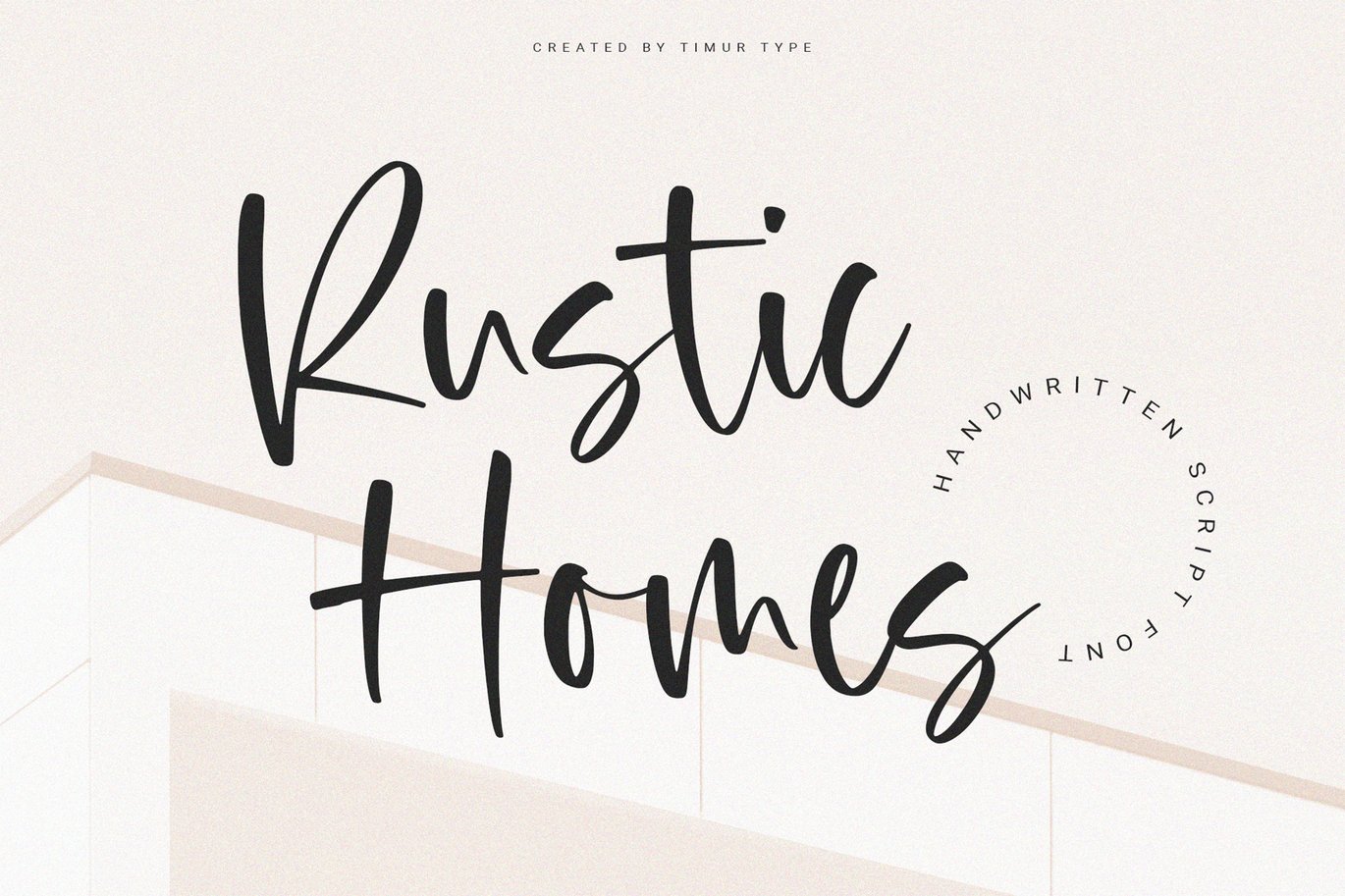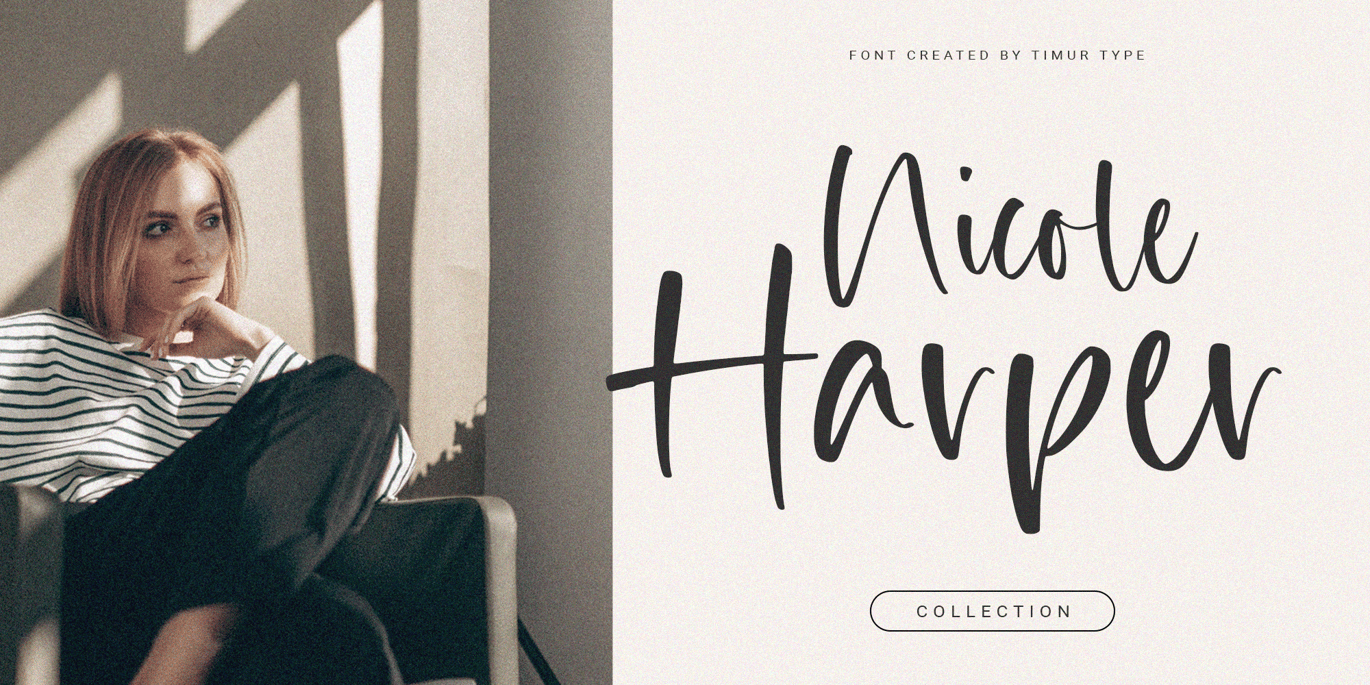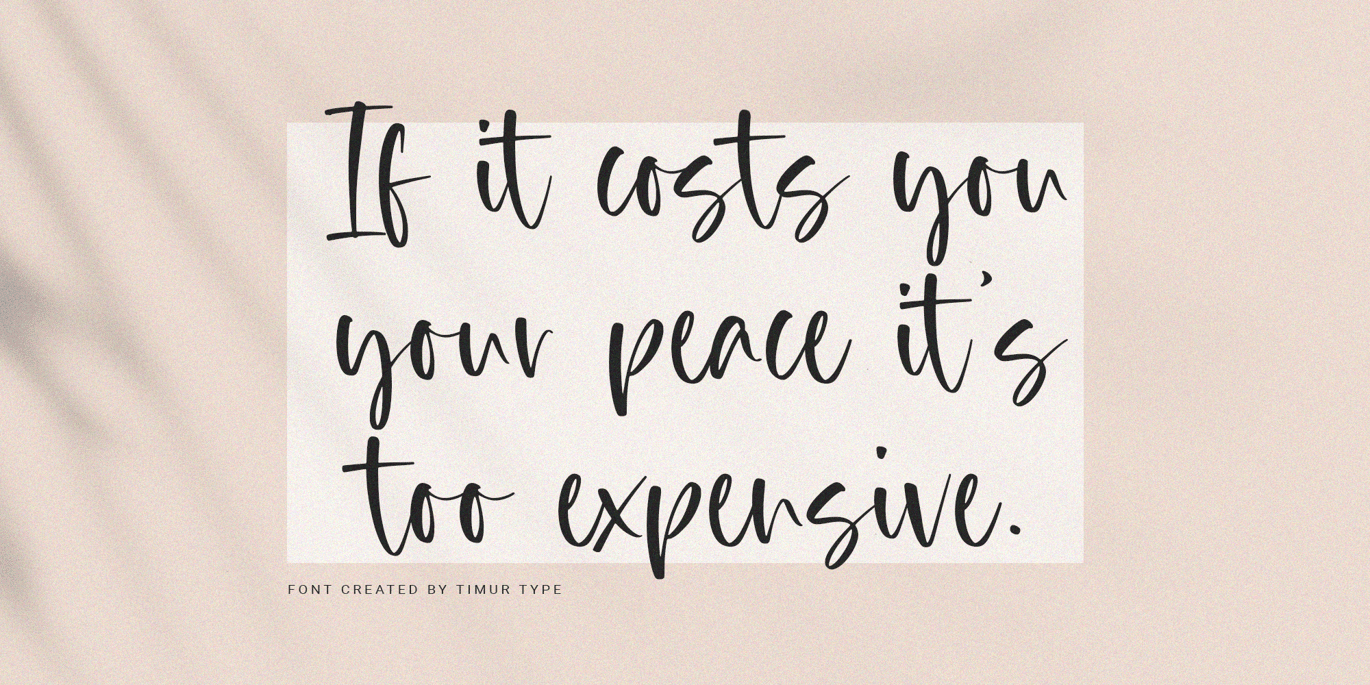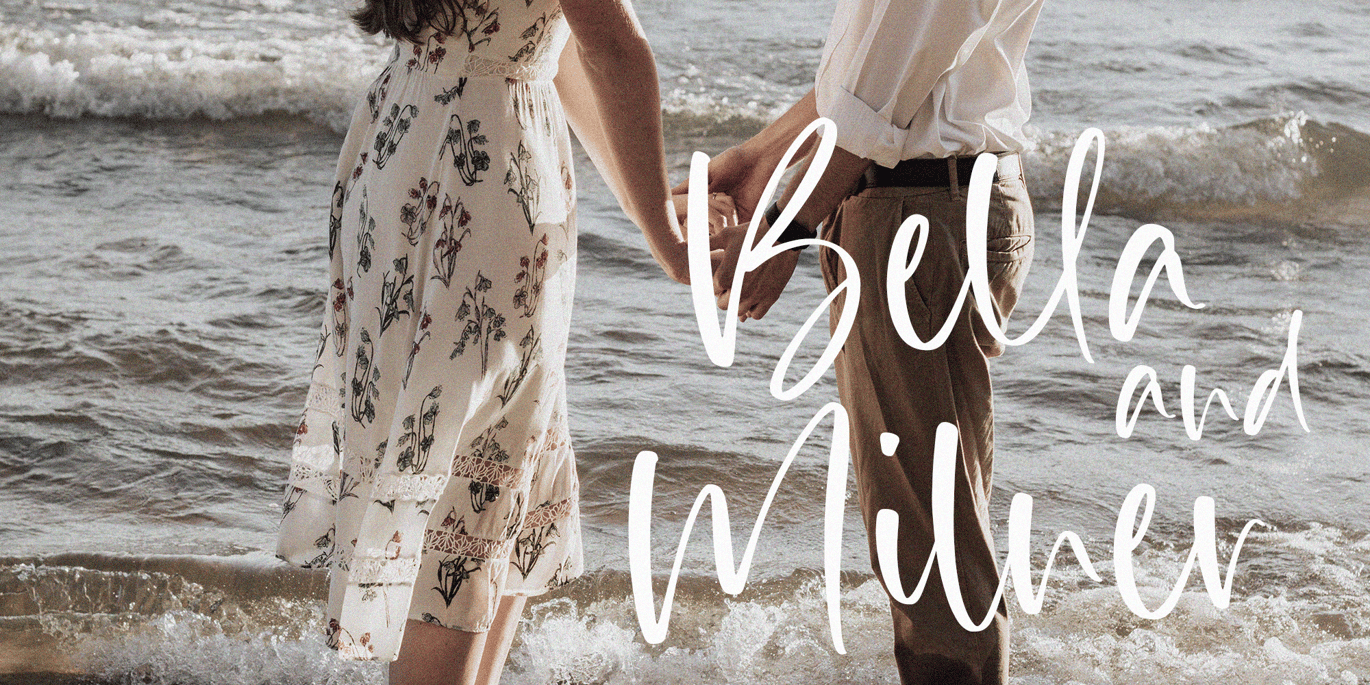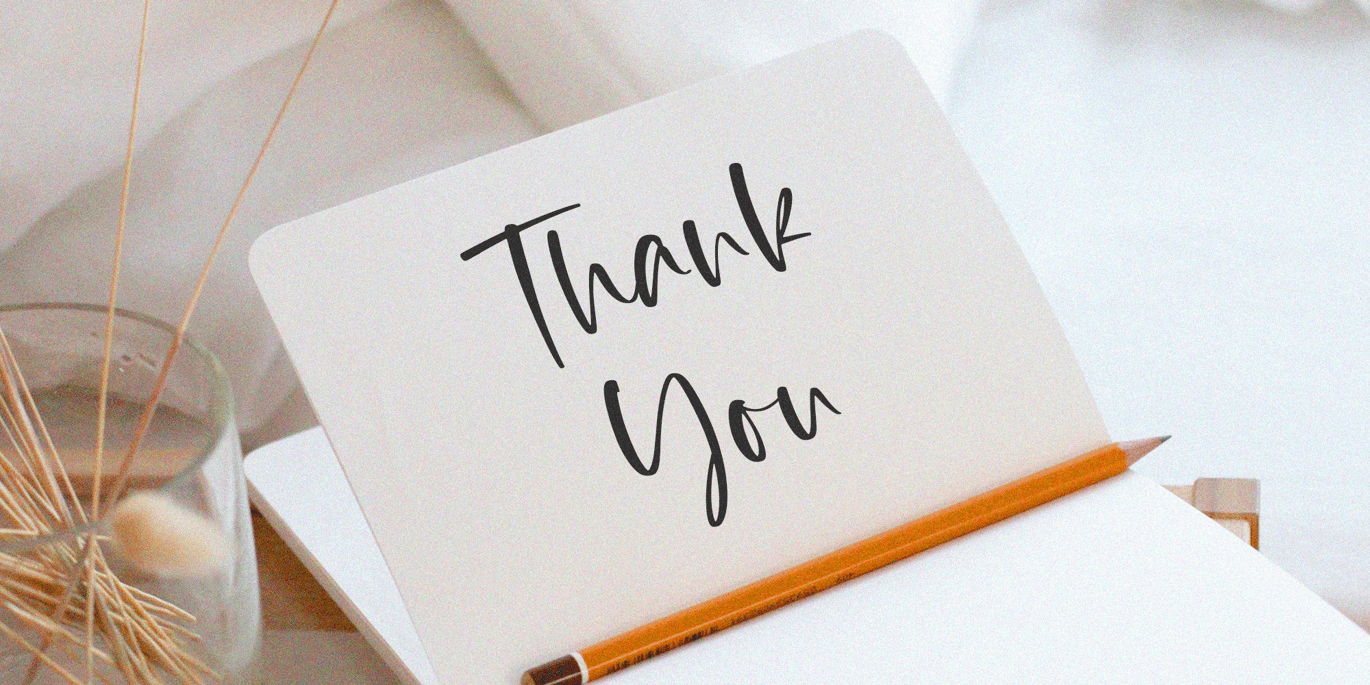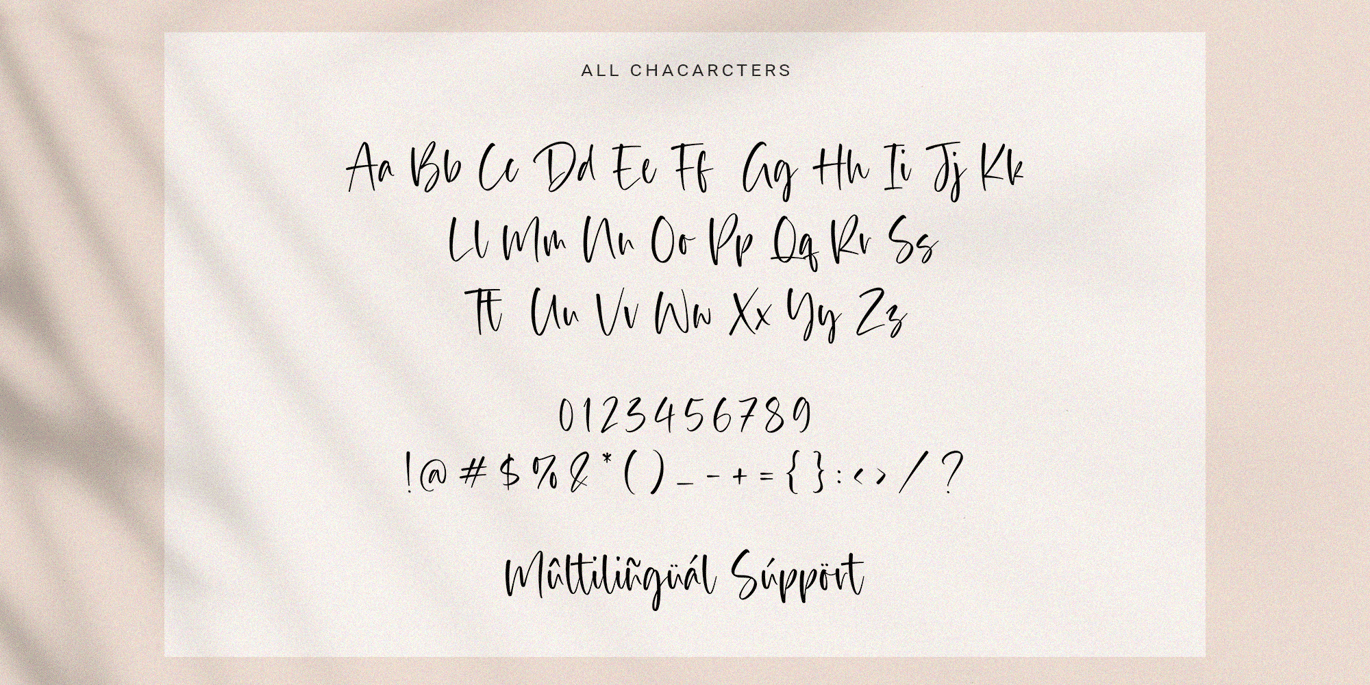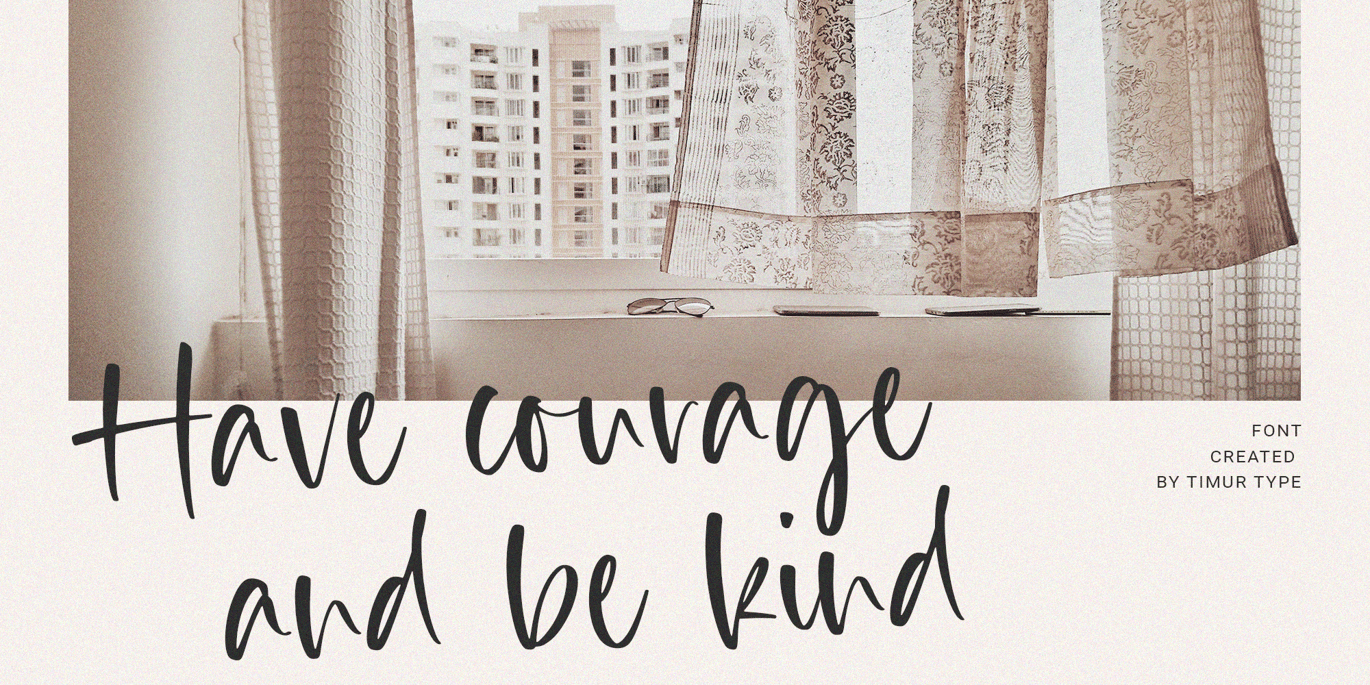
Rustic Homes – Handwritten Script Font TT
Rustic Homes A Handwritten Script Font , which was created with great care and specially created for you
Rustic Homes is perfect for product packaging, branding project, megazine, social media, wedding, or just used to express words above the background.
- multilingual support.